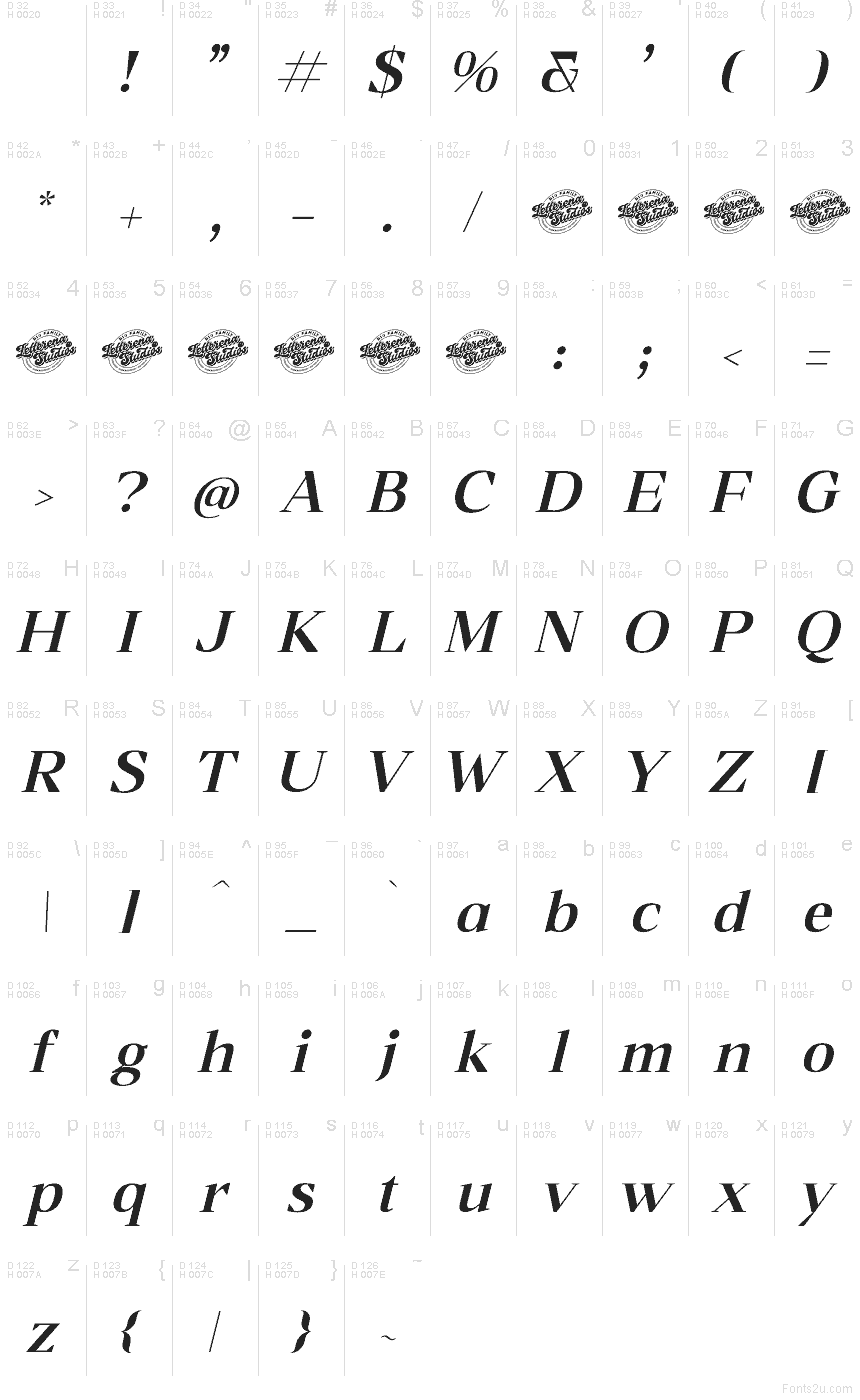
Gridova DEMO VERSION Italic
Gridova Italic font by Letterena Studios is a free italic serif typeface that moves with a smooth, almost calligraphic sweep. The letters lean with confidence, with dense black strokes and sharp, chiseled edges that give every word a decisive, editorial punch. Sitting within the Gridova family, this cut feels especially dramatic, like a headline caught mid-motion across a glossy magazine spread.
Using Gridova Italic, titles and logos gain a strong, stylish slant that shines on book covers, fashion branding, packaging, posters, social media graphics, and bold website hero text. The compact spacing keeps compositions tight and impactful, so a little goes a long way at larger sizes. For a balanced look, pair this free font with a clean geometric sans for body copy and let Gridova Italic handle the statement moments.